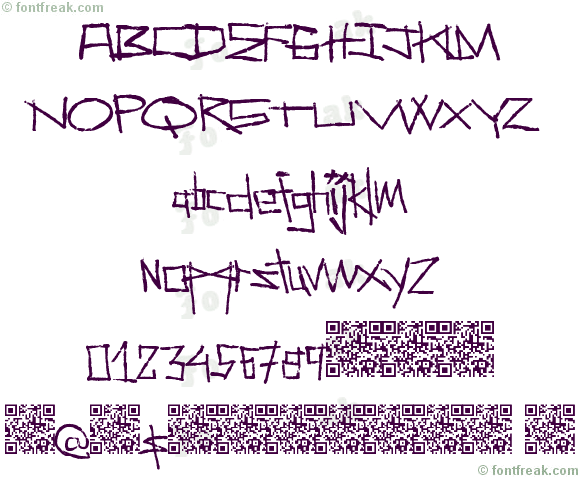
SecondAvenue
About SecondAvenue
SecondAvenue, created by XEROGRAPHER FONTS in 2015, is a distinctive display font that exudes a unique character perfect for a range of creative projects. This font falls into the decorative category, characterized by its unconventional and artistic letterforms. The strokes exhibit a playful irregularity, giving the font a hand-drawn quality that is both casual and eye-catching. The varying stroke weights and uneven spacing create a sense of movement, making it visually dynamic and engaging.
The SecondAvenue font is ideal for a variety of applications. Its quirky style makes it an excellent choice for wedding invitations, where a touch of whimsy can enhance the overall design. Additionally, it works wonderfully for movie posters, lending a creative flair that captures attention. Restaurant menus can also benefit from the font's unique aesthetic, helping to convey a sense of personality and charm that matches the dining experience. Furthermore, content creators looking to add a distinctive touch to social media graphics or branding materials will find this font particularly appealing.
Target audiences for SecondAvenue include graphic designers, small business owners, and content creators who are seeking to make a bold statement in their work. The font's unique style can help brands stand out in a crowded marketplace, providing a memorable visual identity.
Overall, the SecondAvenue font free download offers a captivating alternative for those looking to infuse their projects with creativity and originality. Its distinctive appearance and versatility make it a standout choice for anyone seeking to elevate their design work while leaving a lasting impression.